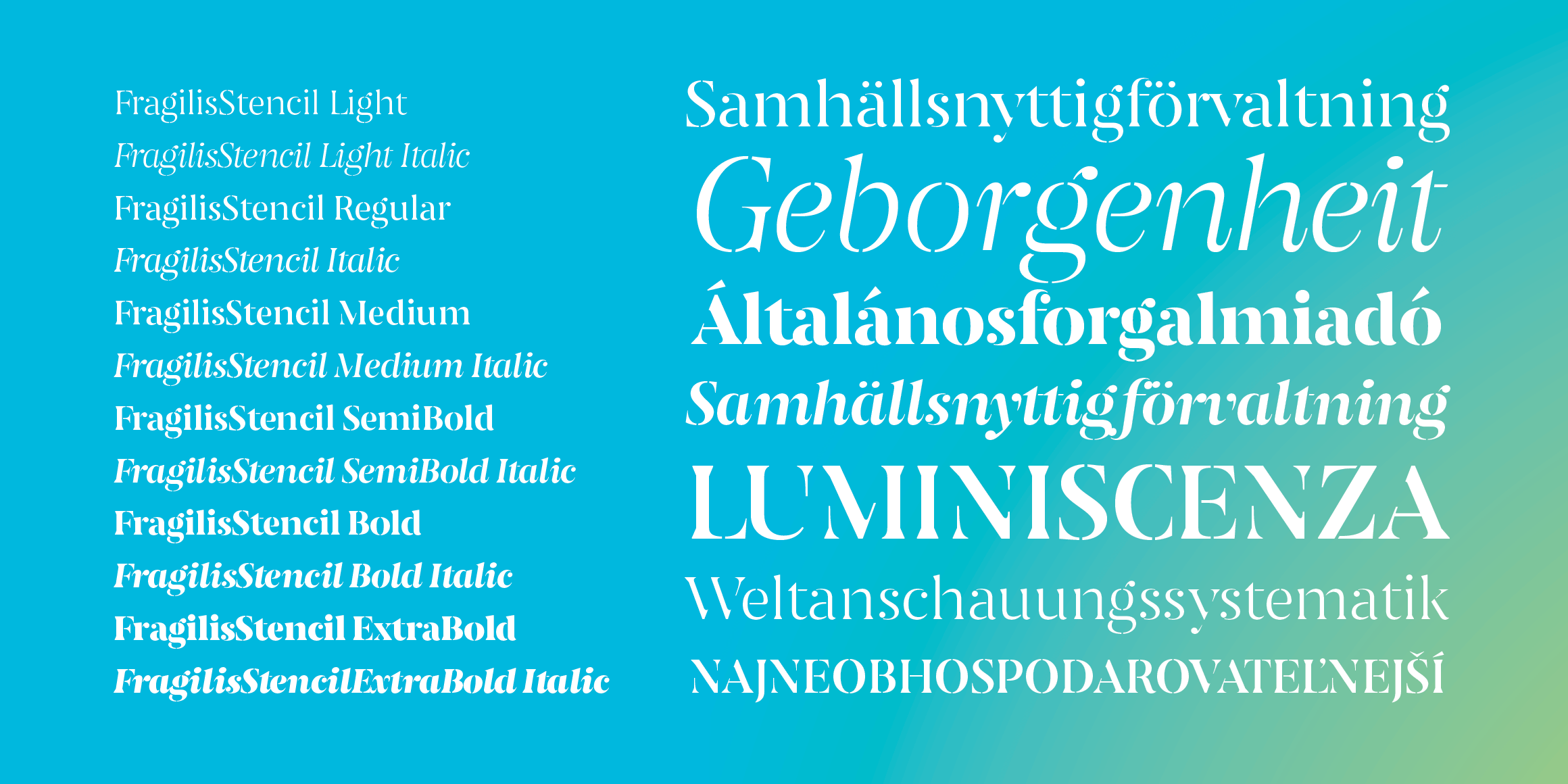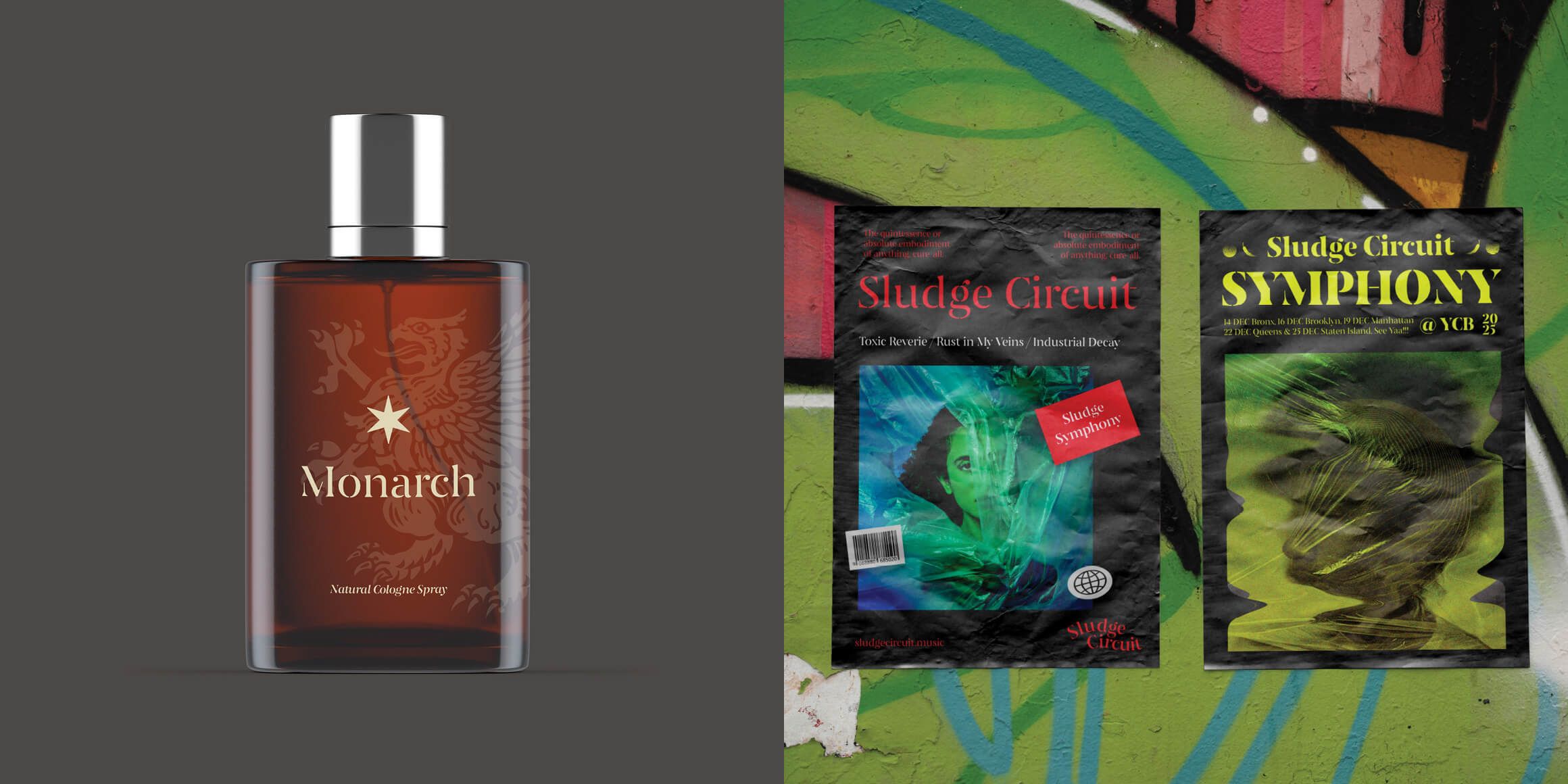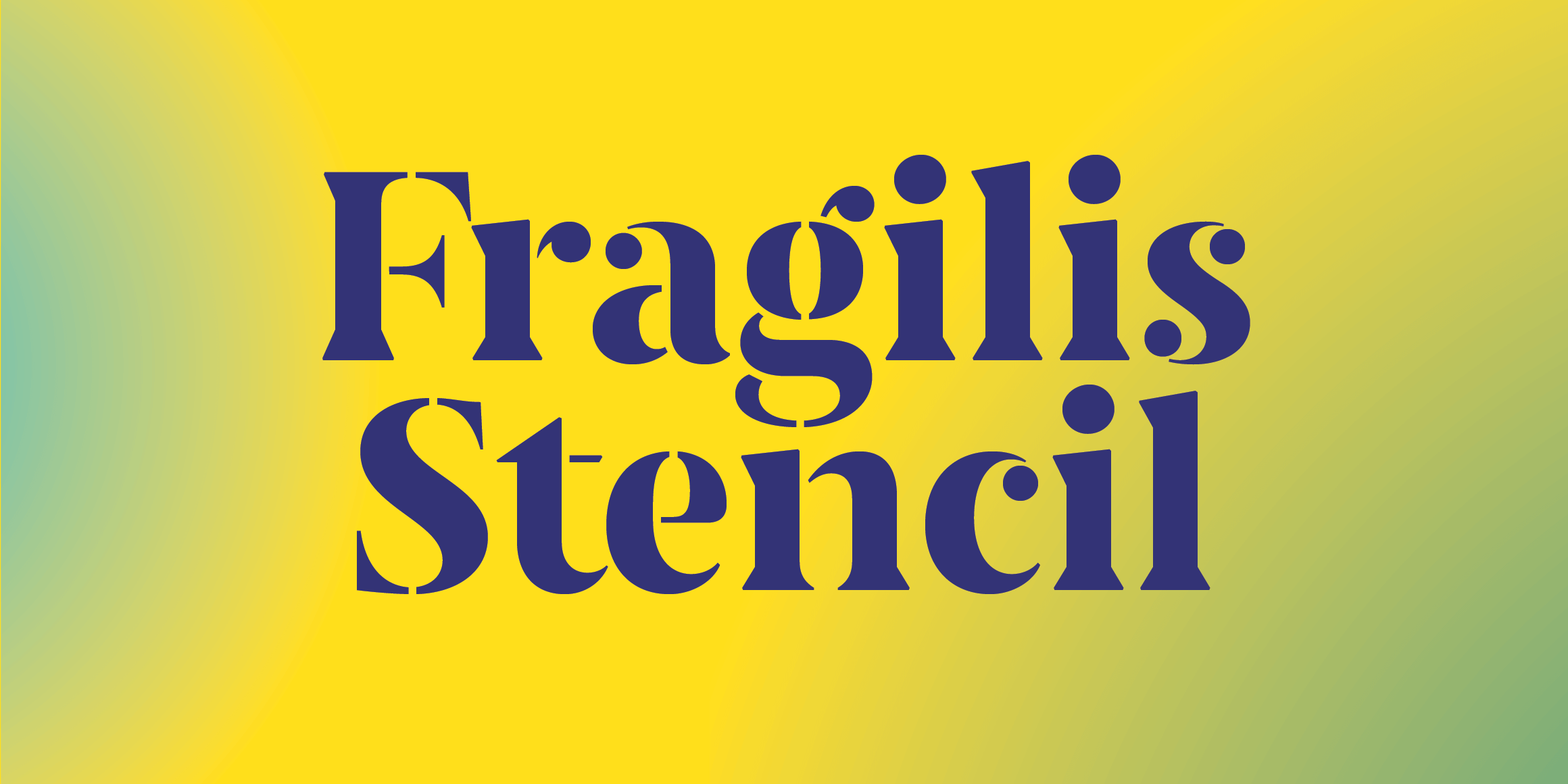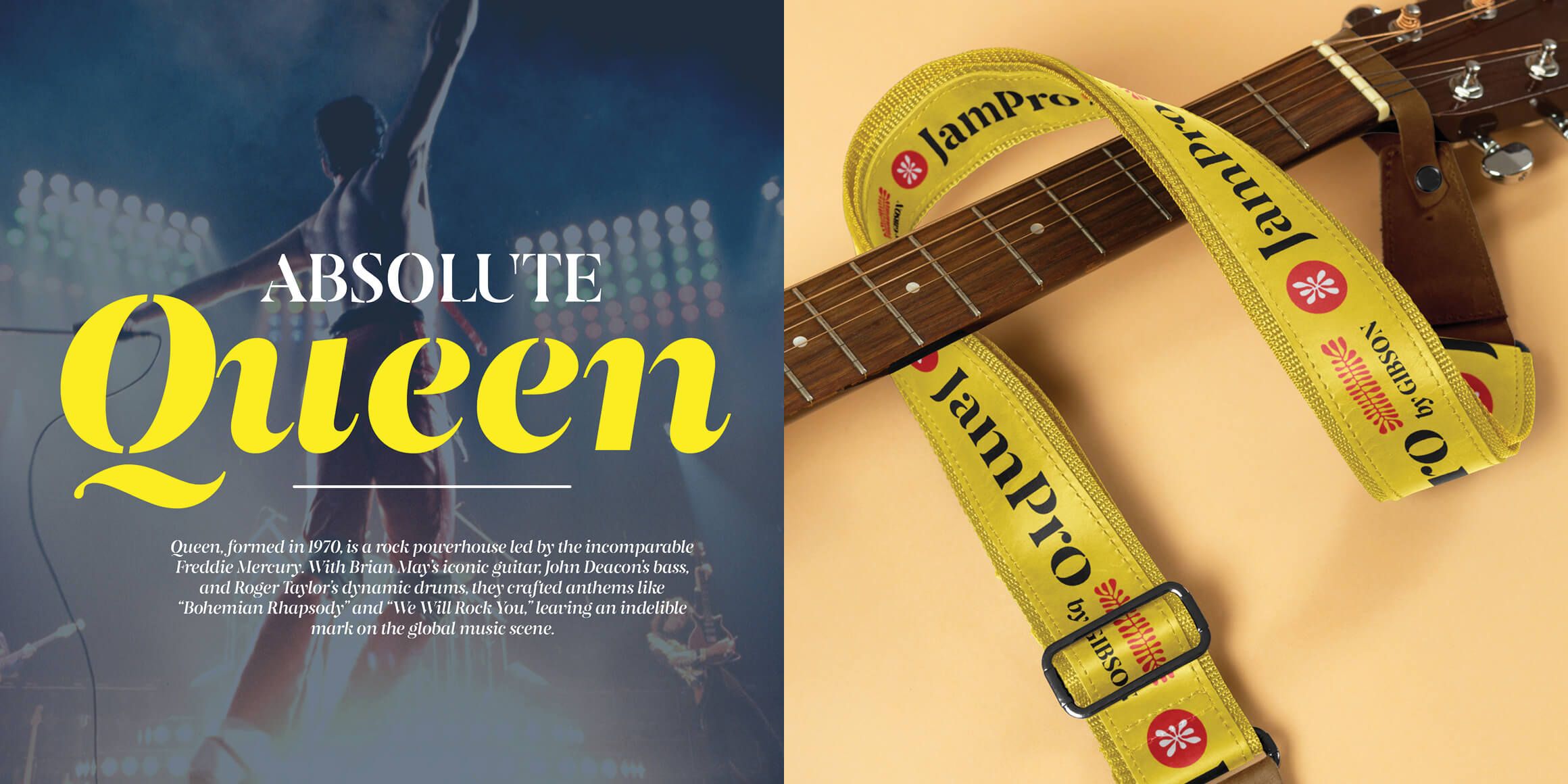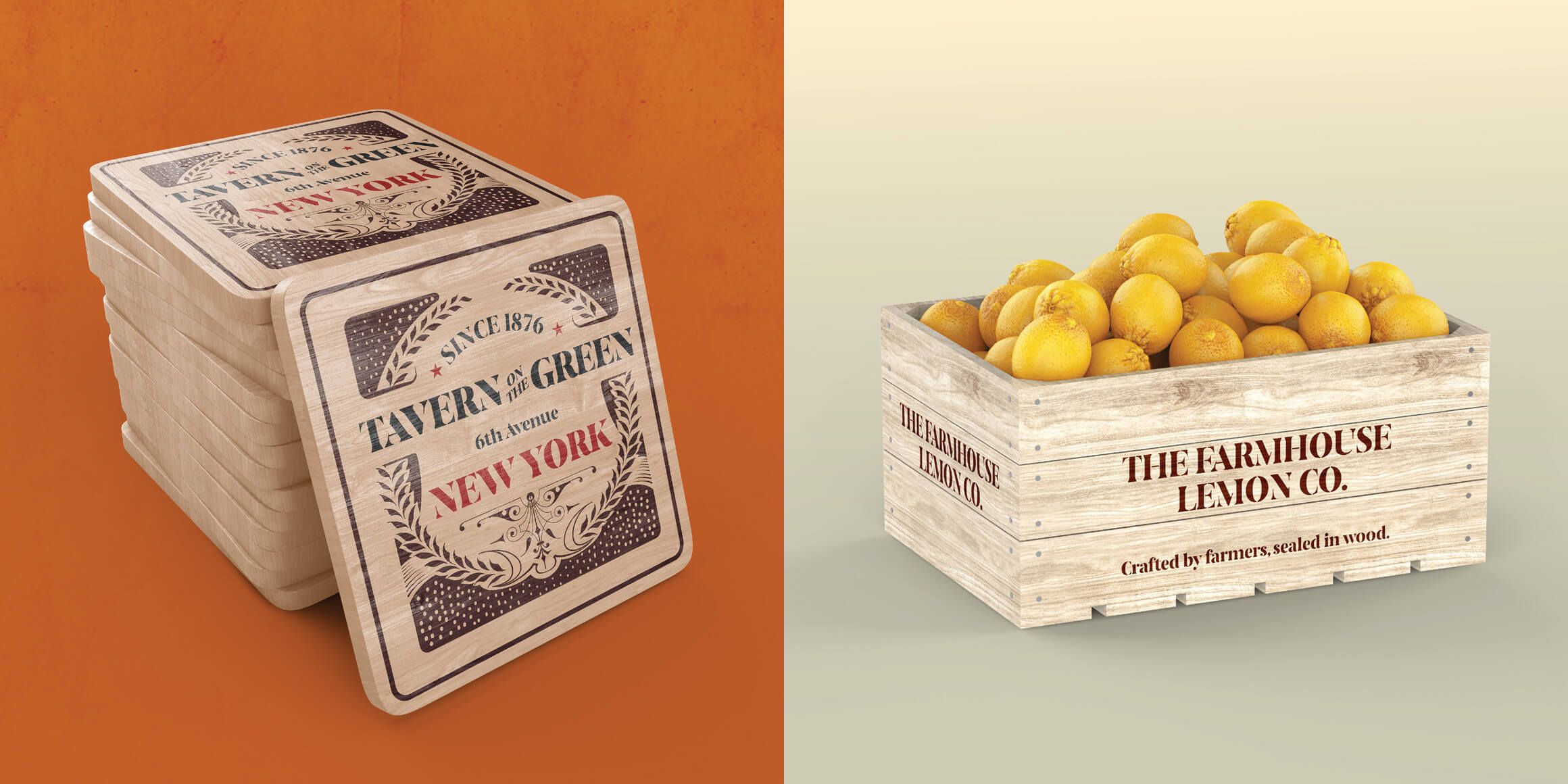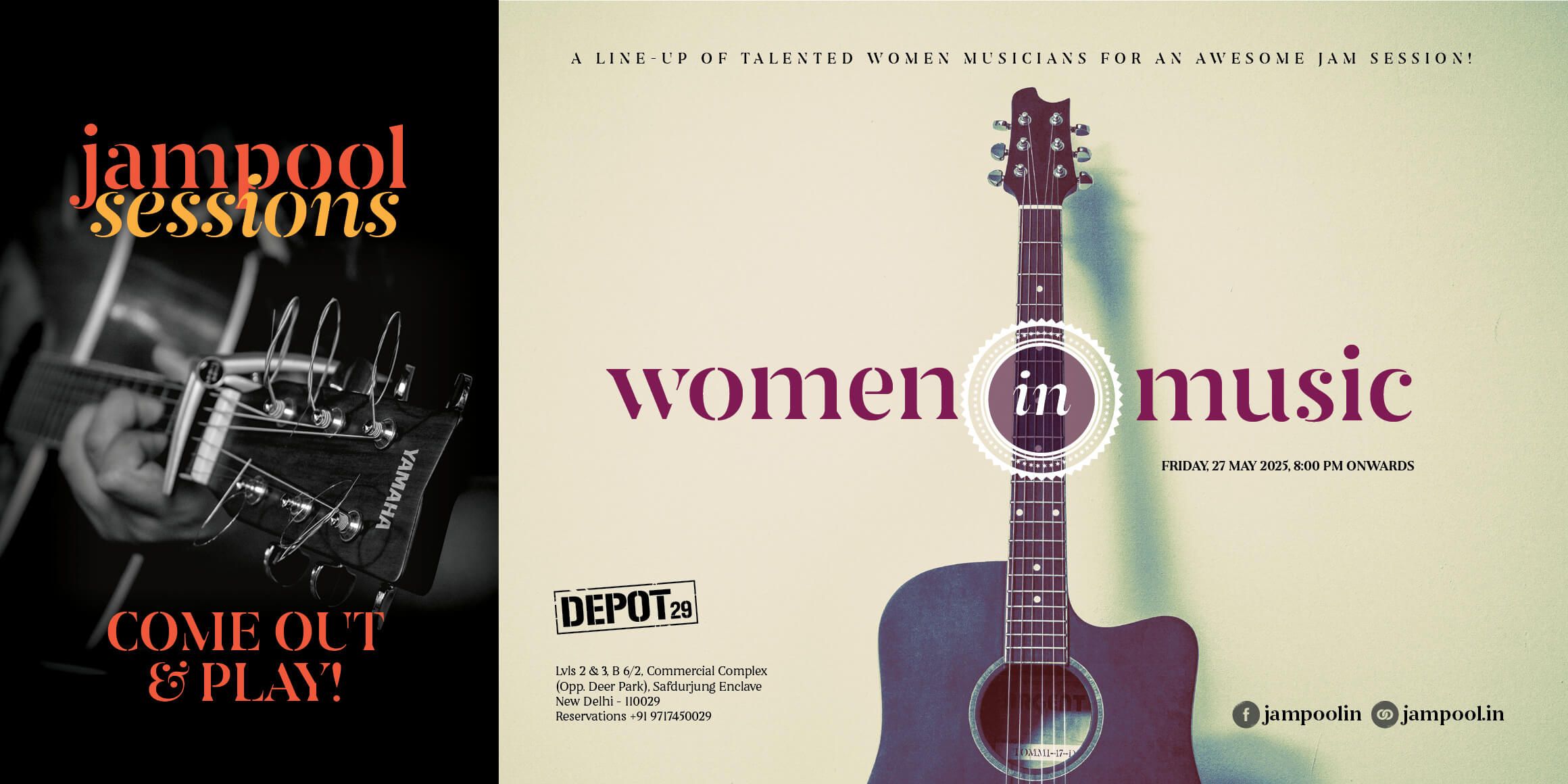
Fragilis Stencil
Fragilis Stencil is the companion stencil style to Fragilis Display, designed to complement its bold and impactful aesthetic. Despite its fragmented appearance, Fragilis Stencil maintains excellent legibility, making it ideal for headlines, posters, and branding where a strong visual presence is essential. This typeface balances the cohesive family aesthetics with a touch of ruggedness, providing a versatile solution for projects that demand both boldness and sophistication.